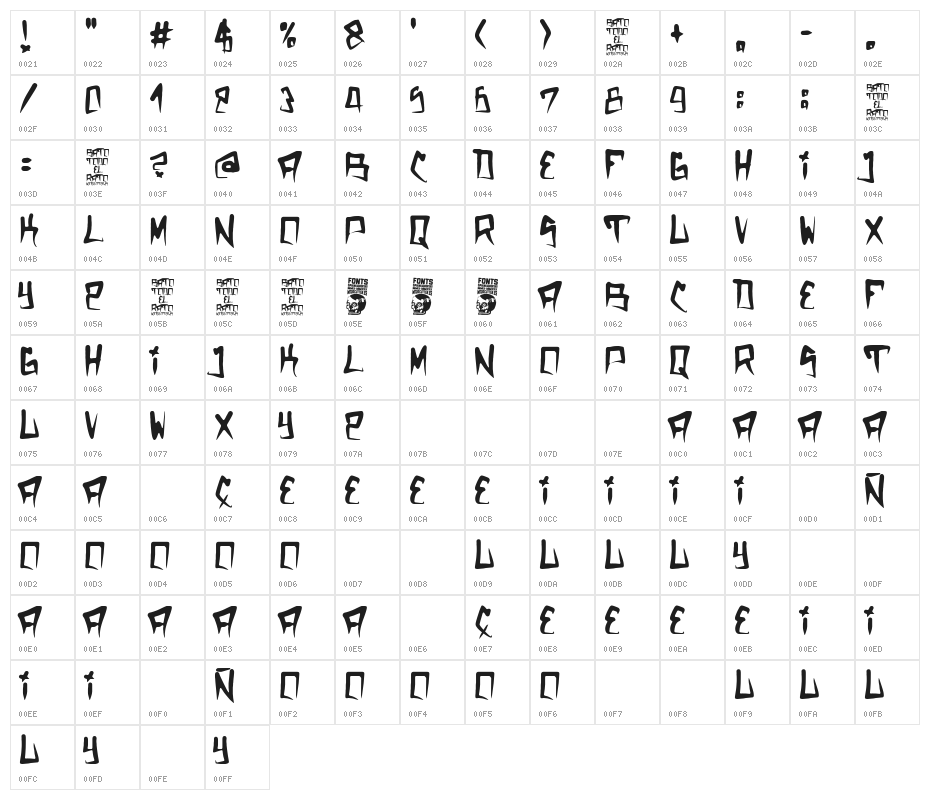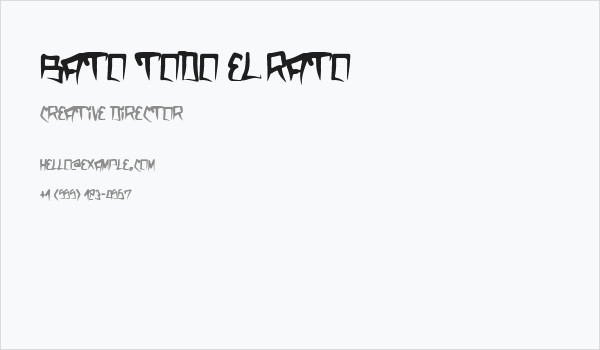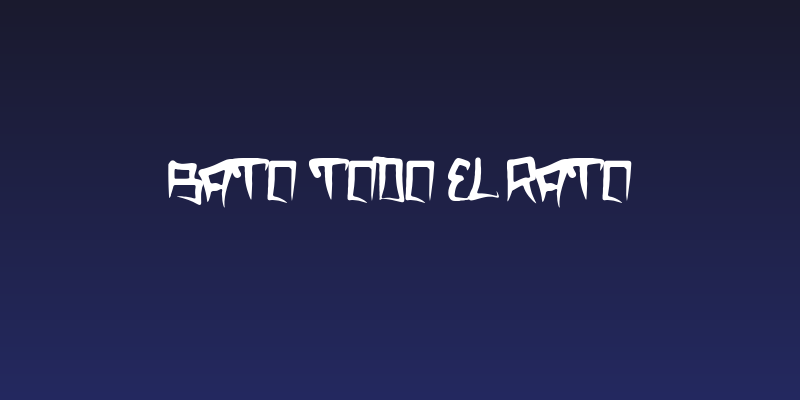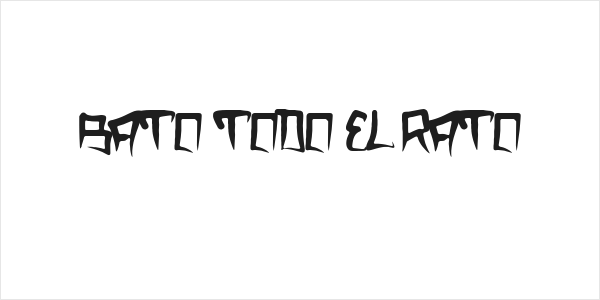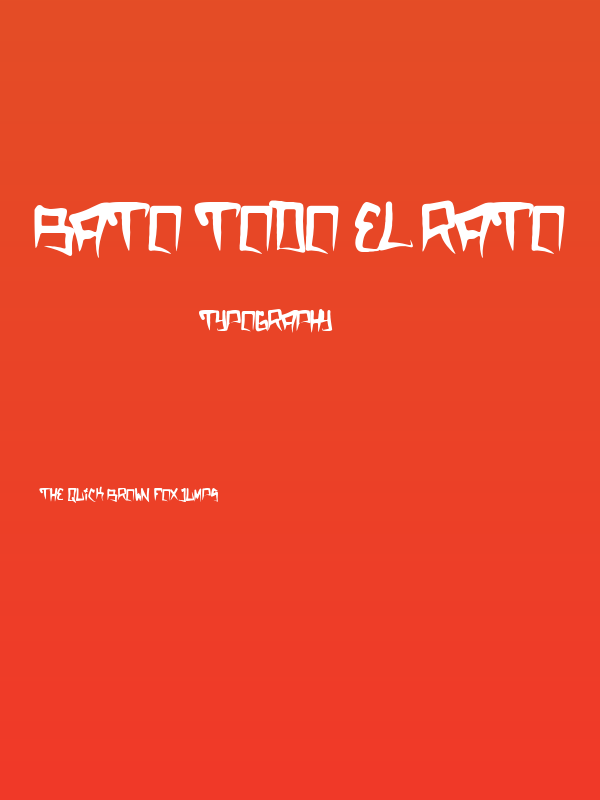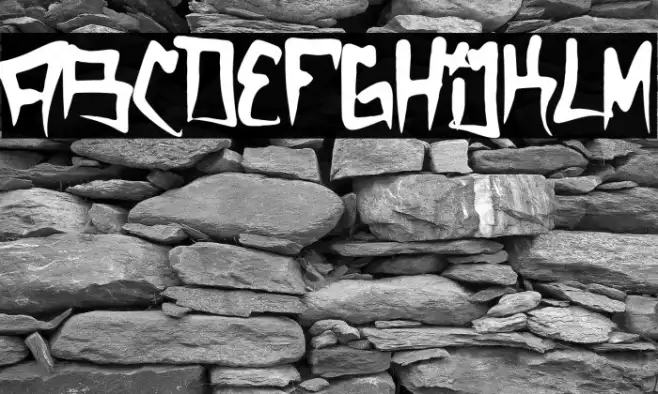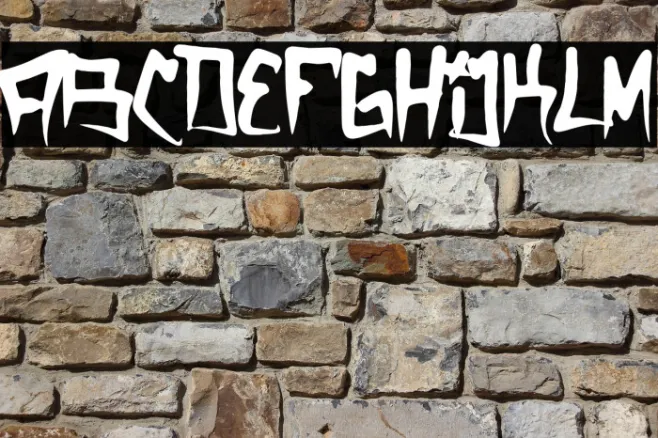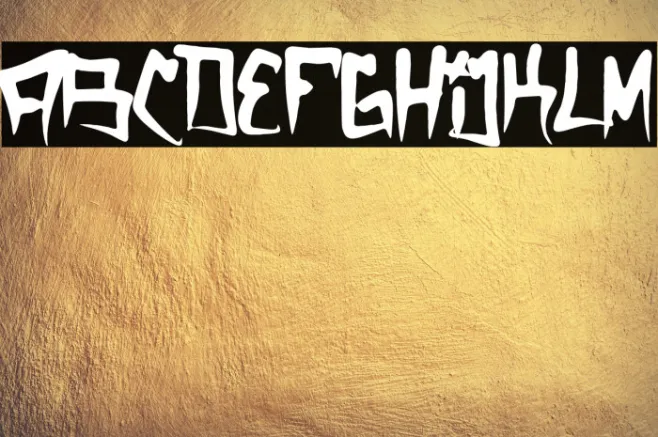
Bato todo el Rato Font
Bato todo el Rato Description
This font features a bold and aggressive style with sharp, angular lines and a graffiti-like appearance. The uppercase letters are distinctively jagged, giving an edgy and rebellious feel. The lowercase letters maintain the same sharpness, creating a cohesive look throughout the alphabet. Numbers and special characters follow the same design principles, ensuring consistency. The overall aesthetic is striking and unconventional, making it ideal for projects that require a bold statement. The font's unique style is reminiscent of street art and urban culture, providing a modern and dynamic vibe.
| Overall Style | Modern, Urban, Edgy |
| Proposed Projects | Ideal for street art designs, music album covers, urban-themed posters, and edgy branding projects. |